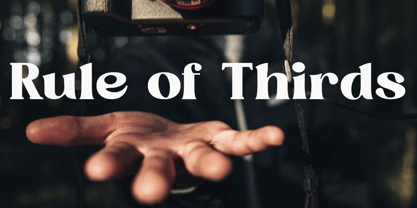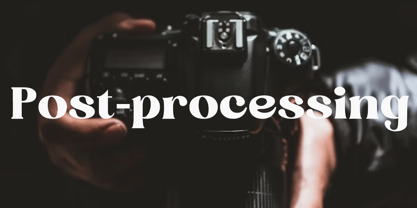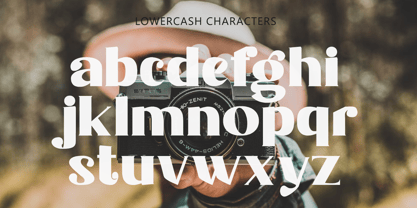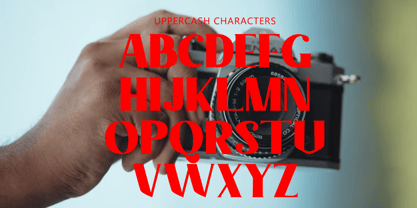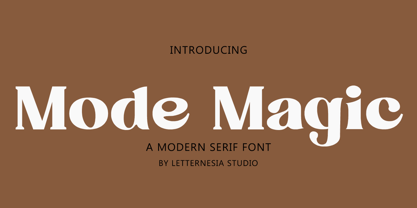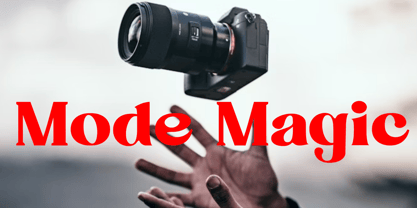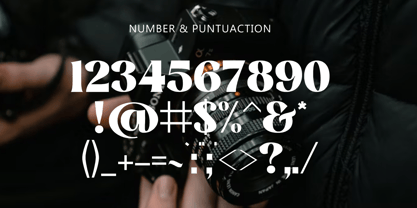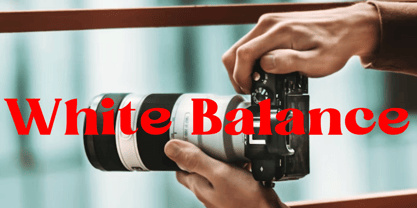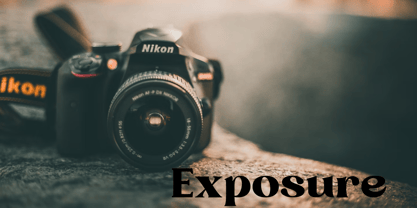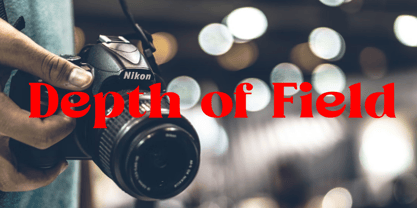
Mode Megic
by Letternesia studio
The Mode Megic Font Family was designed by Ta Siyo and published by Letternesia studio. Mode Megic contains 1 styles. More about this family
Mode Magic is a modern futuristic font that blends elements of elegance, uniqueness, and a subtle touch of fantasy. It's perfect for designs that aim to be bold, quirky, and full of visual character.
With letterforms that are both sharp and dynamic, Mode Magic delivers a technological yet magical impression—making it ideal for creative projects such as:
• Movie poster titles
• Electronic or pop music album covers
• Futuristic fashion branding
• Social media content with a high-tech aesthetic
🎨 Key Features:
• Geometric letterforms with a balanced mix of sharp angles and smooth curves
• A clean look, yet full of personality and flair
• Great for headlines, logos, or typographic displays
Mode Magic is available in multiple styles, offering flexibility for a wide range of visual design needs.